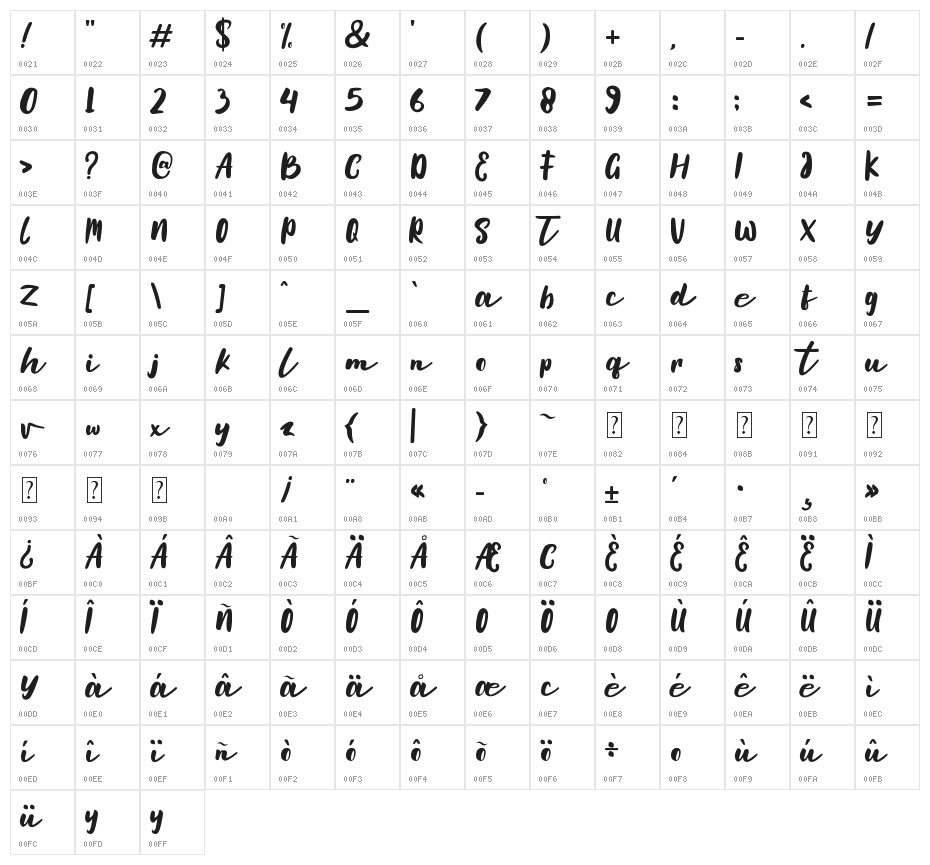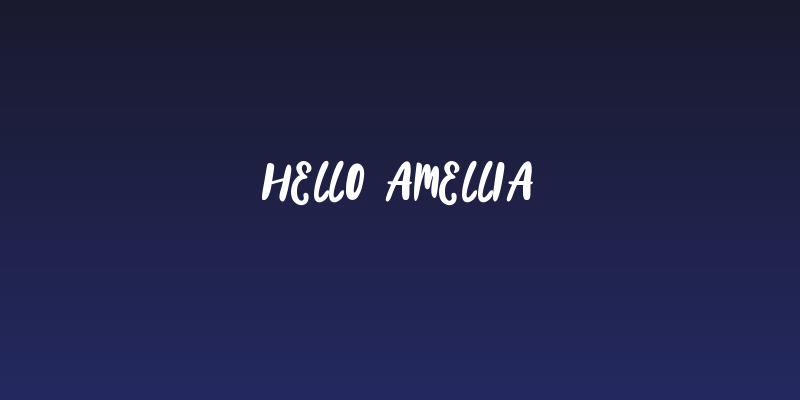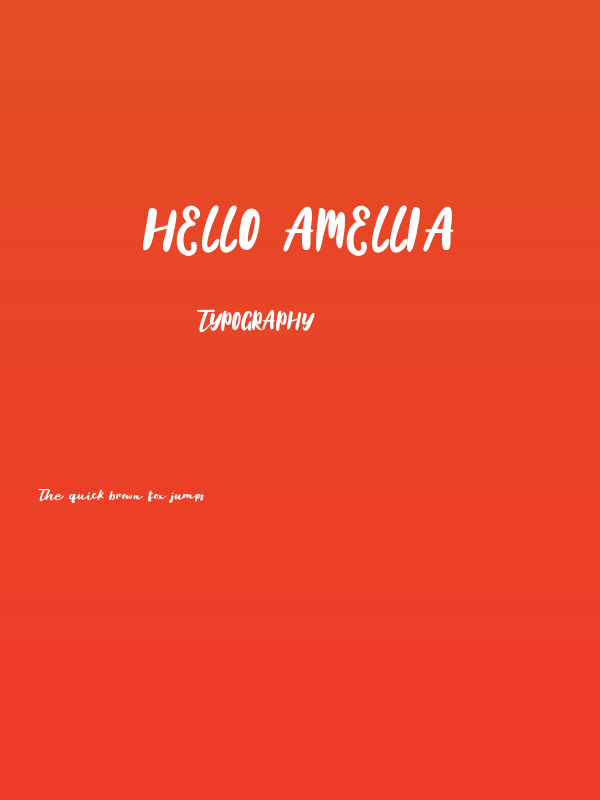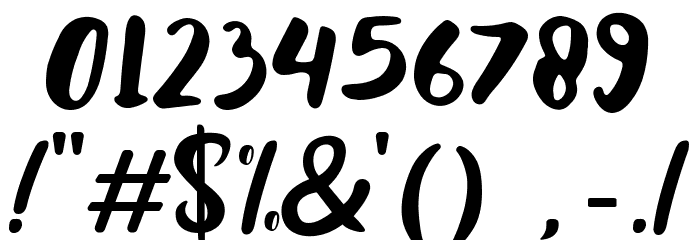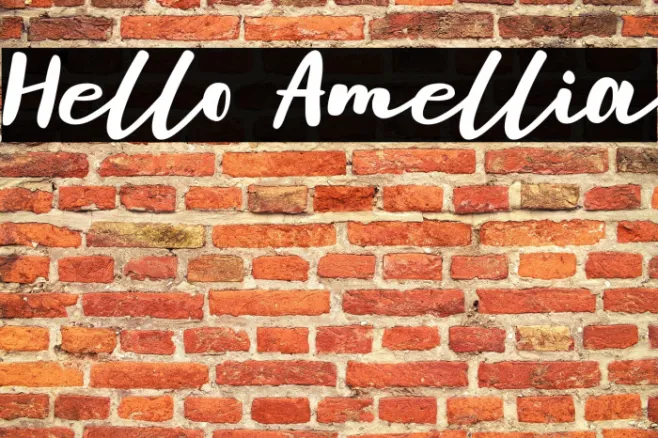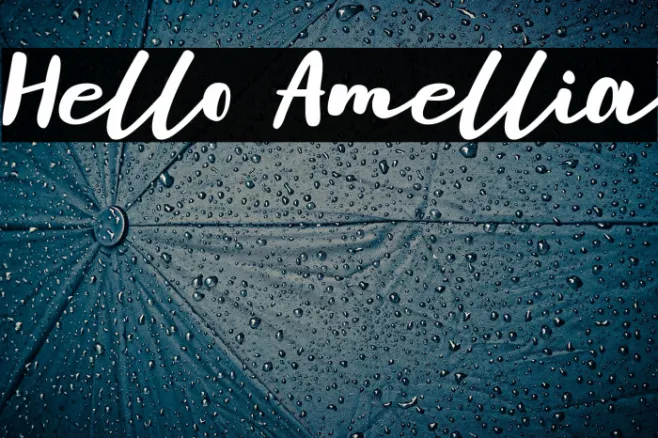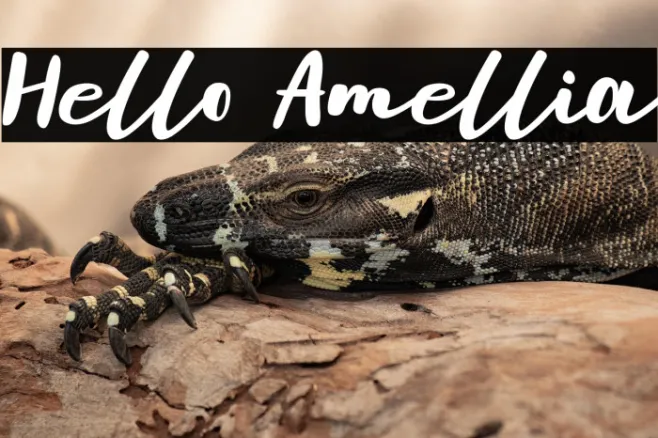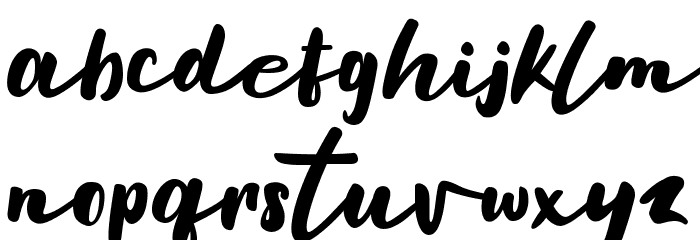
Hello Amellia Font
Hello Amellia Description
This font features a bold, handwritten style with a playful and energetic vibe. The letters are thick and rounded, giving them a friendly and approachable appearance. The uppercase and lowercase letters are distinct, with a slight slant that adds a dynamic flow to the text. The numbers and special characters maintain the same lively style, ensuring consistency across all elements. The strokes are smooth and continuous, mimicking the natural flow of handwriting. This font is ideal for projects that require a personal touch or a casual, informal tone.
| Overall Style | Playful, Energetic, Casual |
| Proposed Projects | Great for greeting cards, invitations, social media graphics, and branding materials that aim for a personal and approachable feel. |